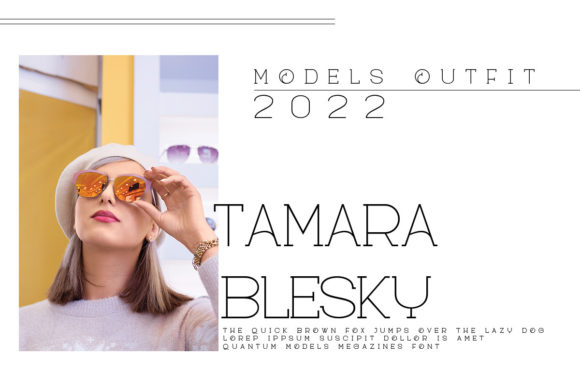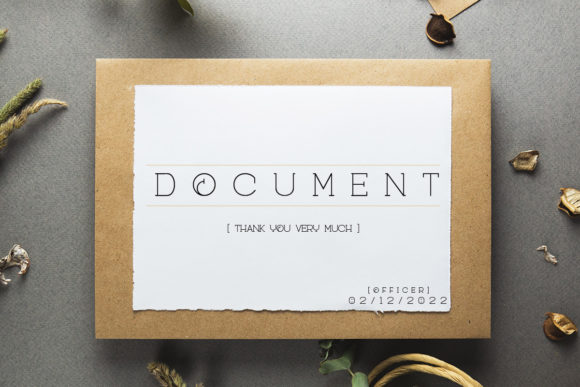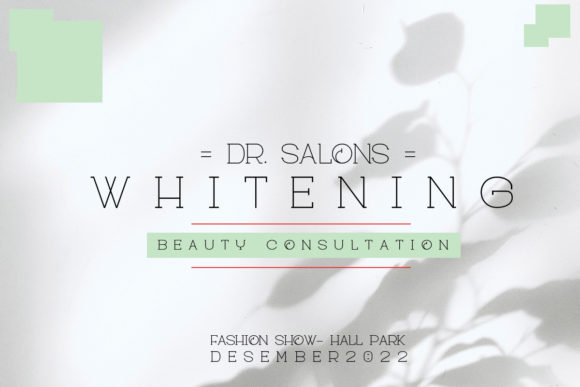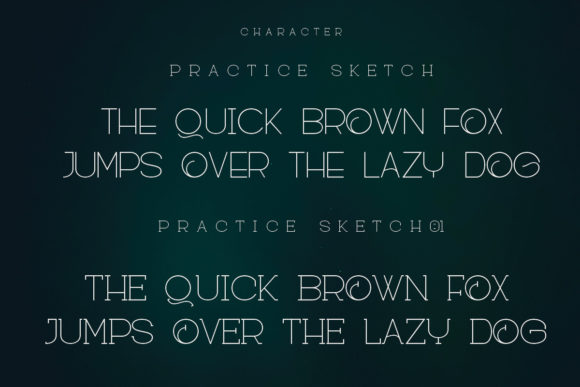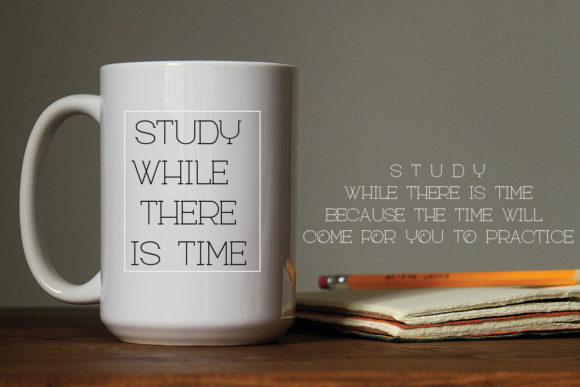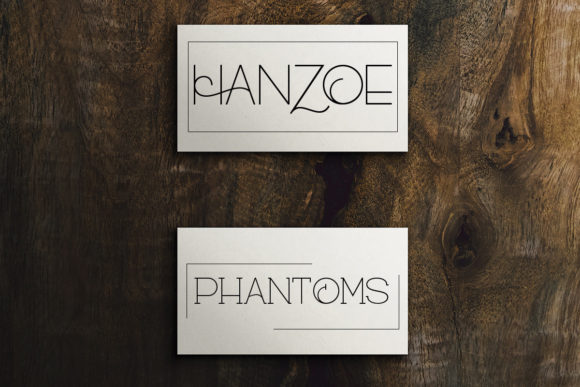
Introduction to Practice Sketch Font
Practice Sketch is perfect for your elegant designs.
It features an authoritative yet luxurious impression and it will most certainly elevate any creation This font is PUA encoded, which means you can access all of the glyphs and swashes with ease.
Key Features of Practice Sketch Font